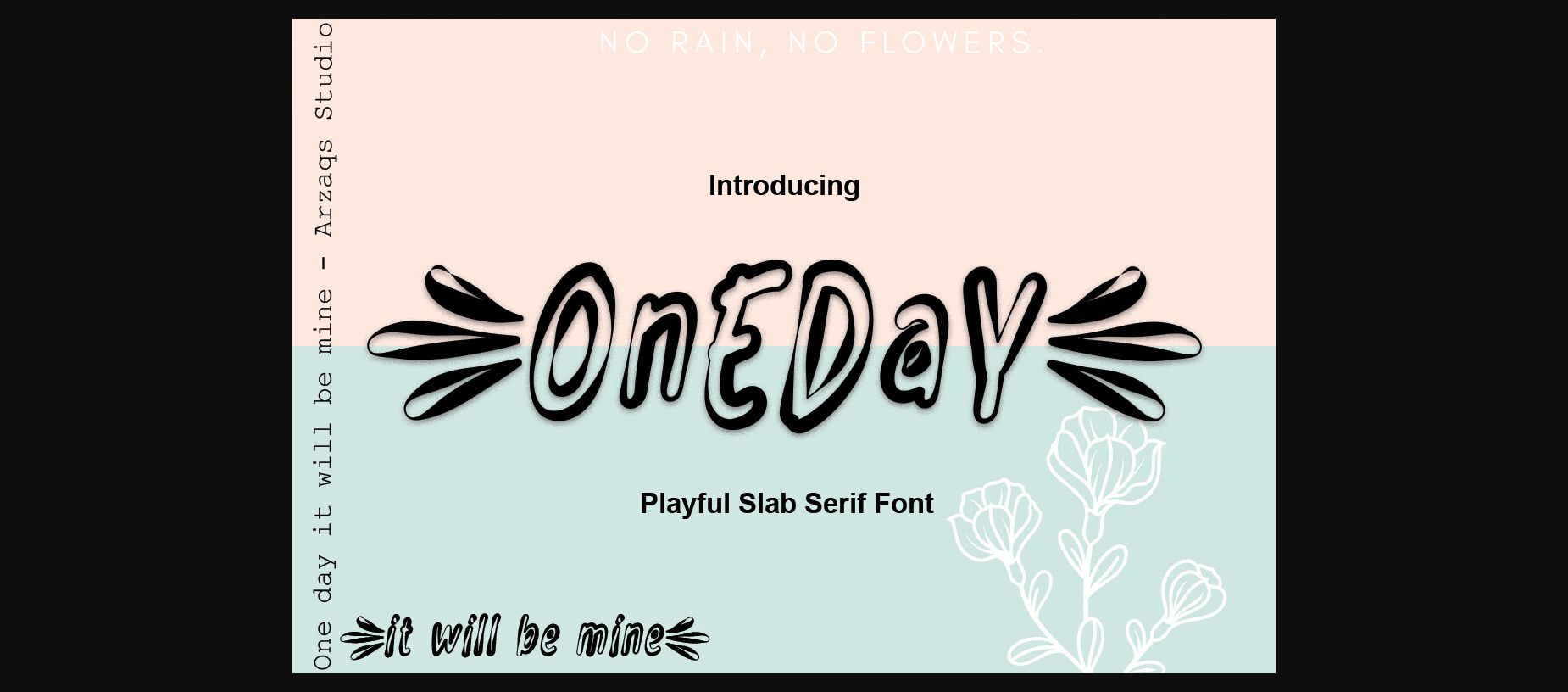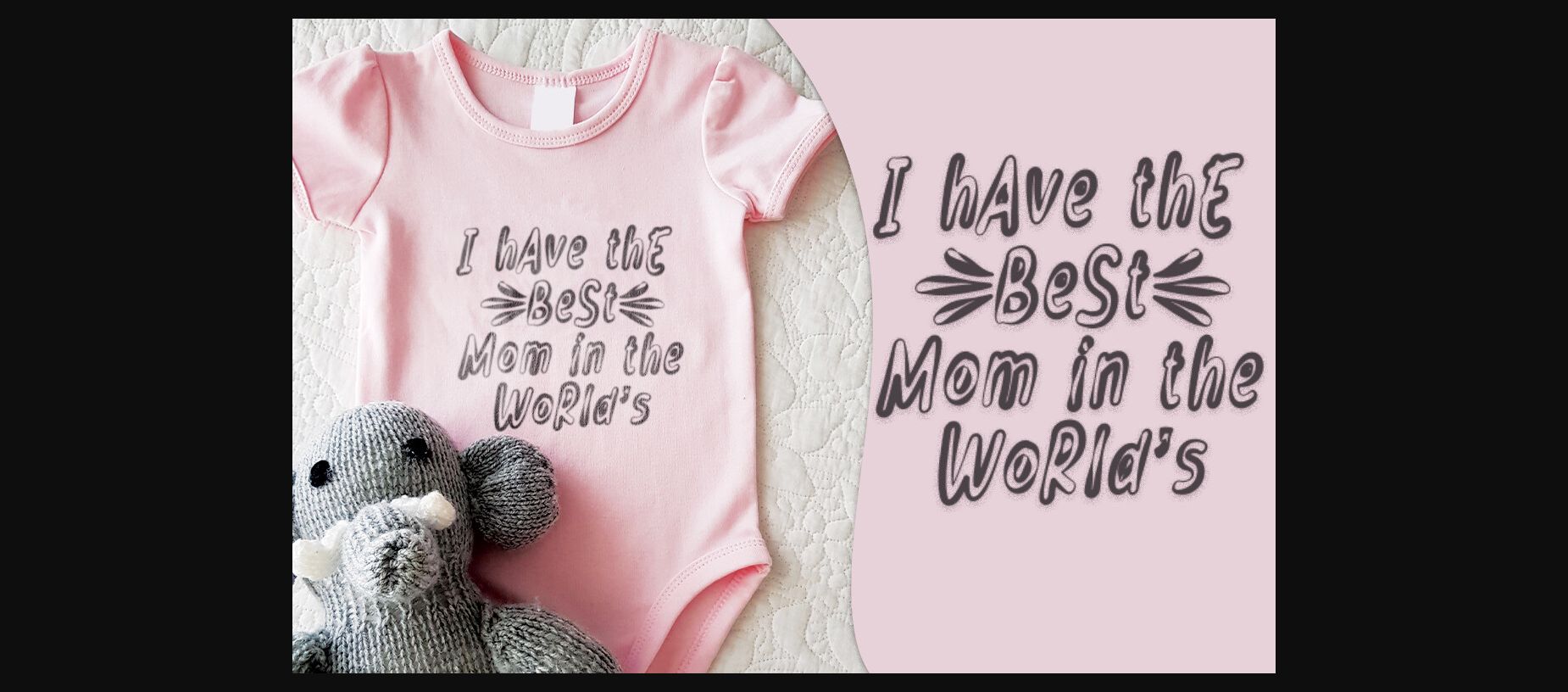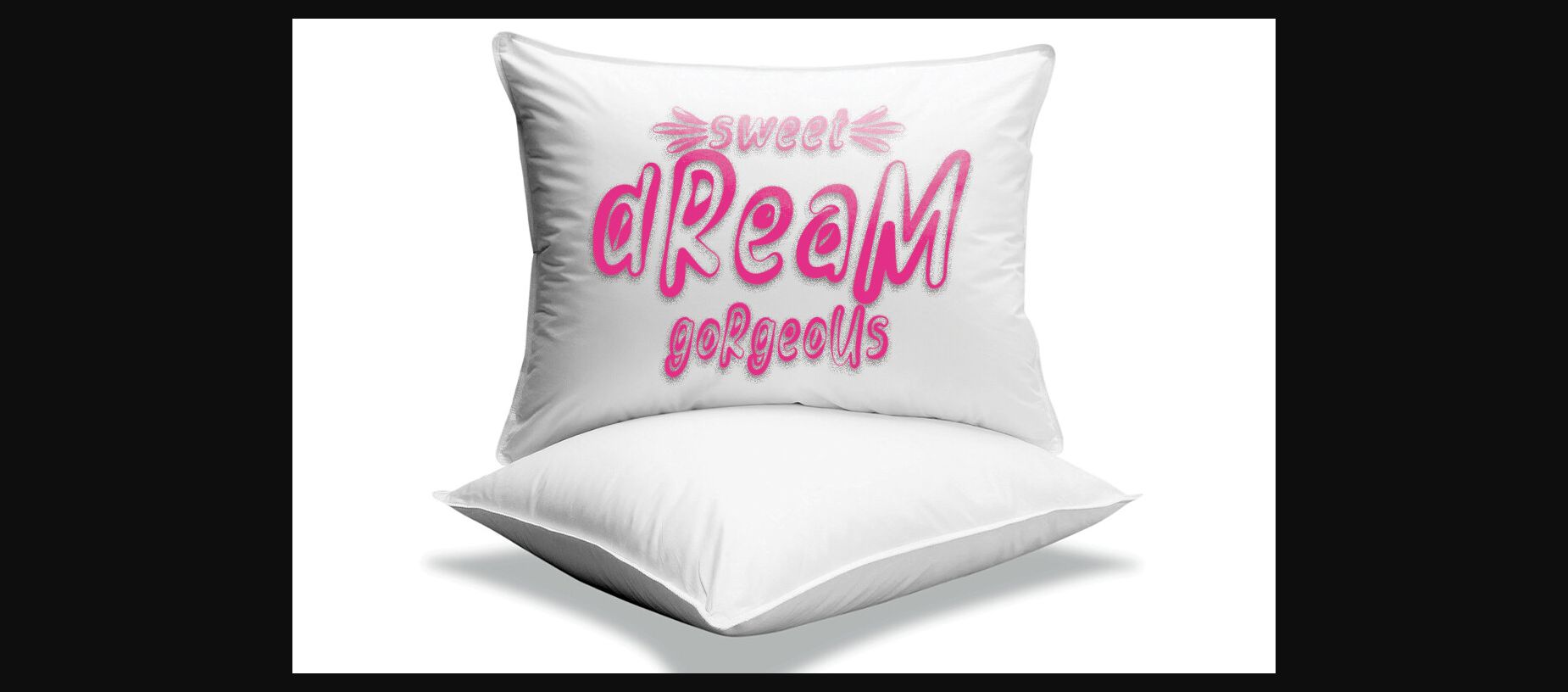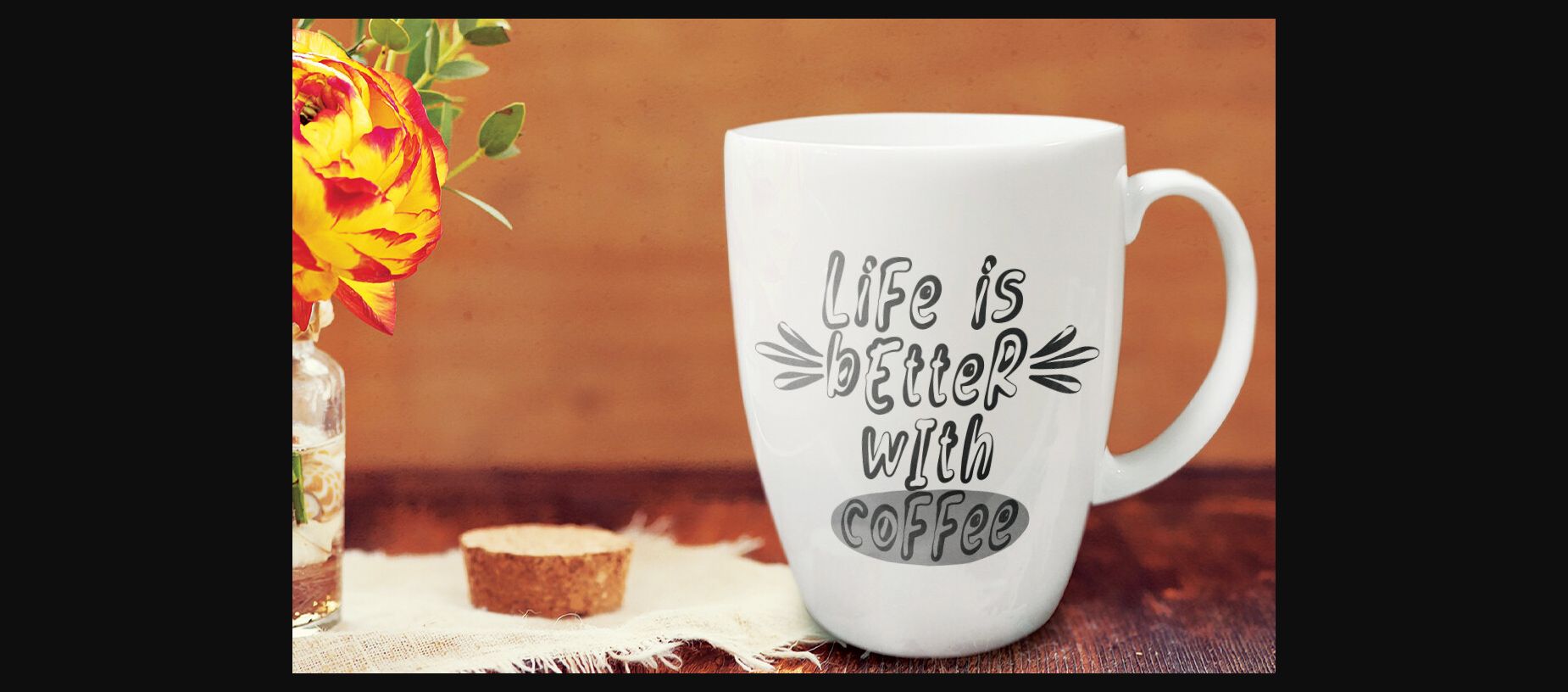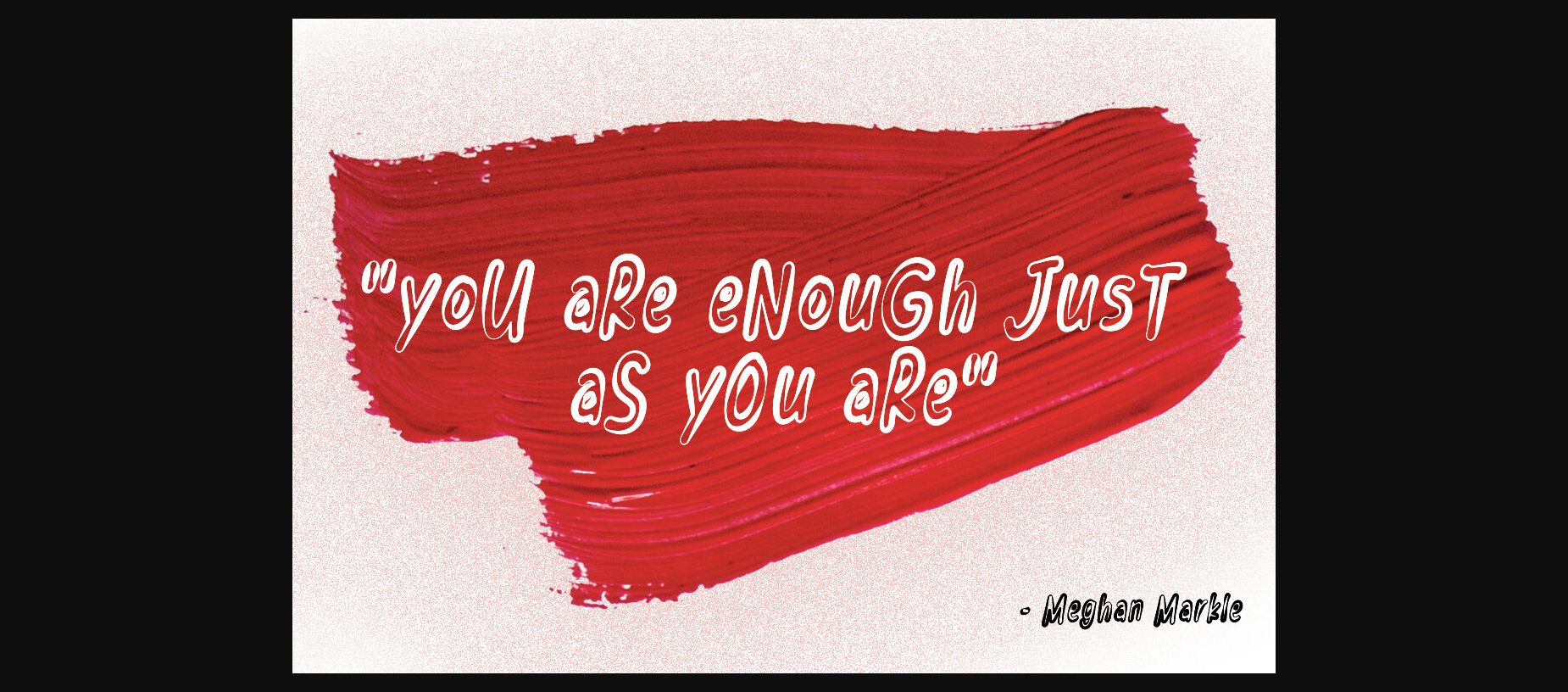
About Oneday Font
Oneday is inspired by classic typography and brings its own unique style to any design project. This fantastic slab serif font is best suited for headlines of all sizes, as well as for blocks of text that have both maximum and minimum variations. Whether it’s for web, print, T-shirt design, moving images, or anything else Oneday font will look spectacular.